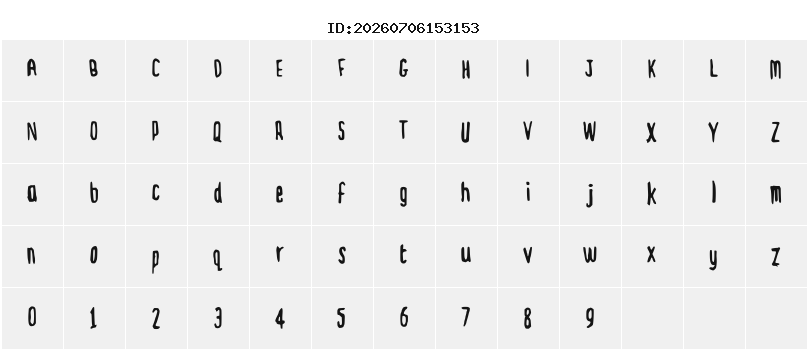
Dickie Preview
• Font Name: Dickie
• Full Font Name: Dickie
• PostScript Name: Dickie
About Dickie.ttf
Dickie.ttf is a modern, elegant sans-serif font designed for ultimate readability and visual harmony. Perfect for branding, headlines, web design, and print materials.